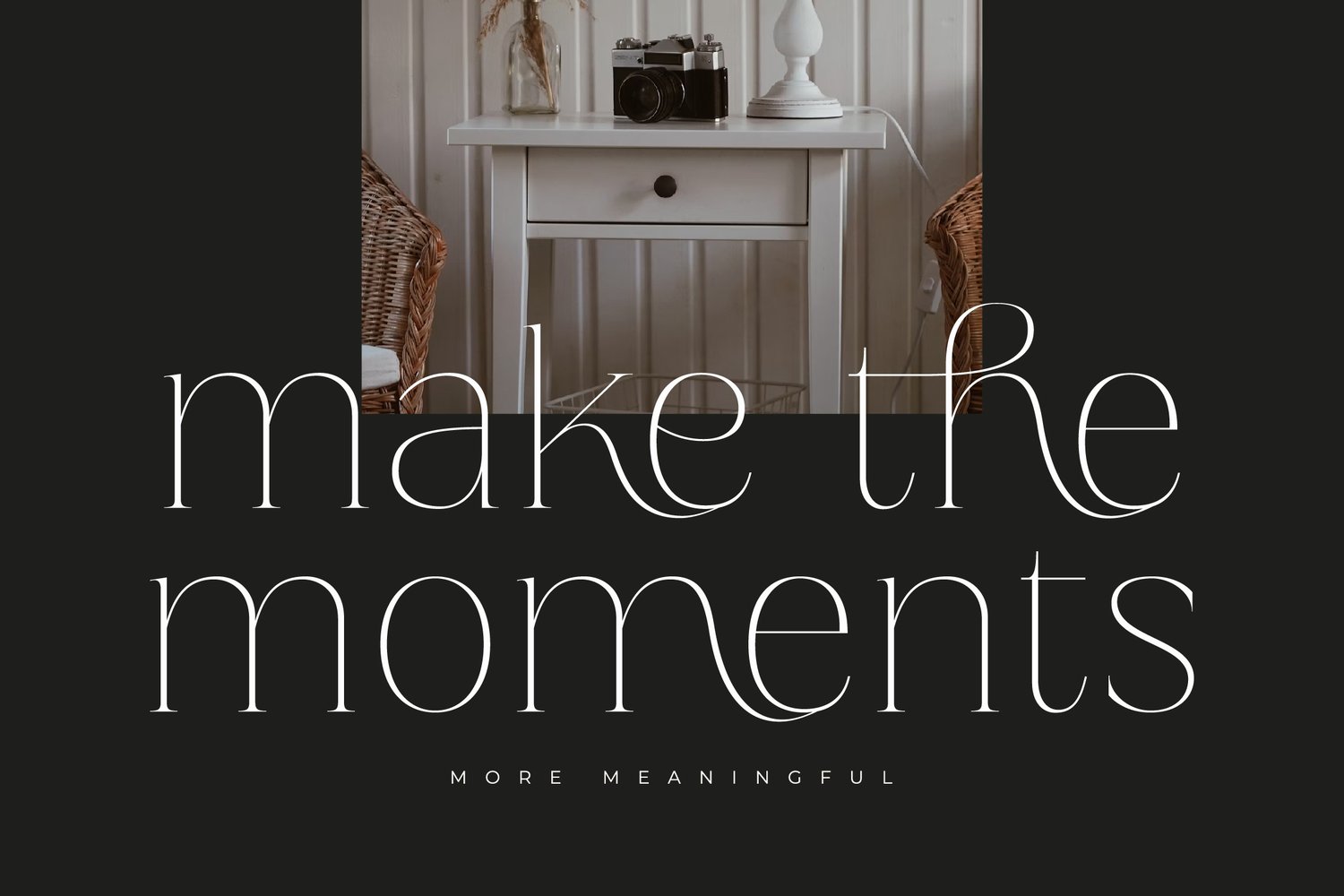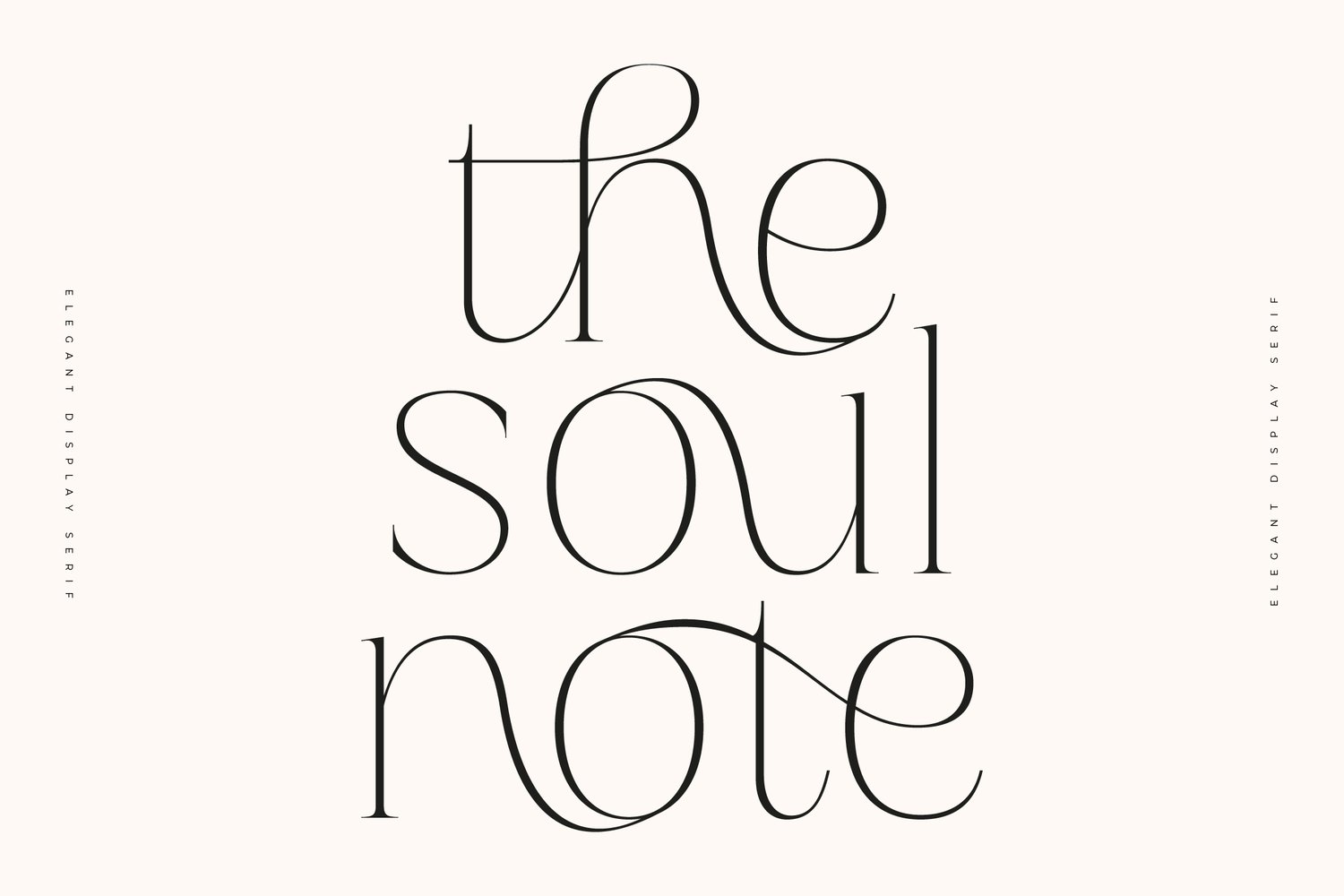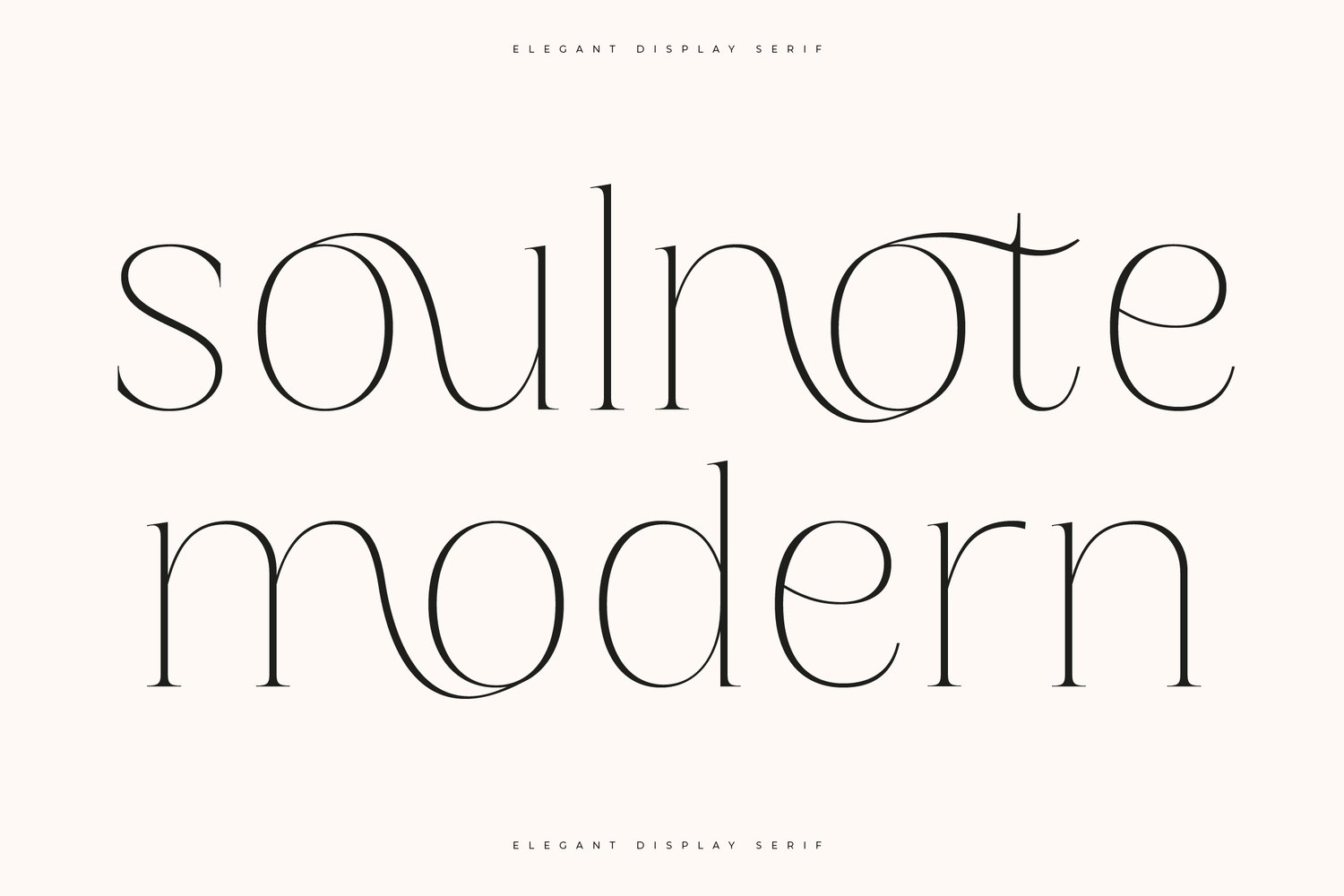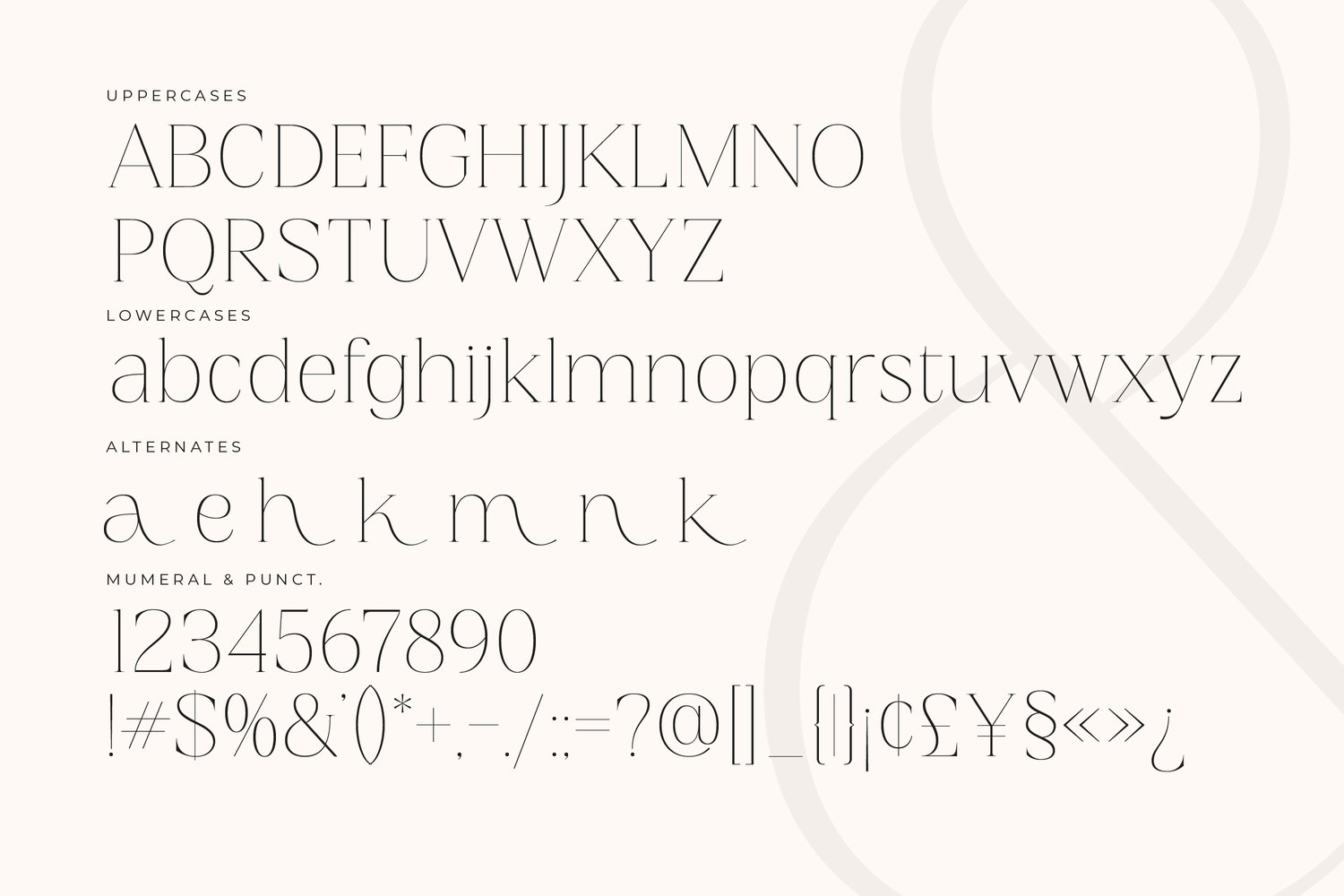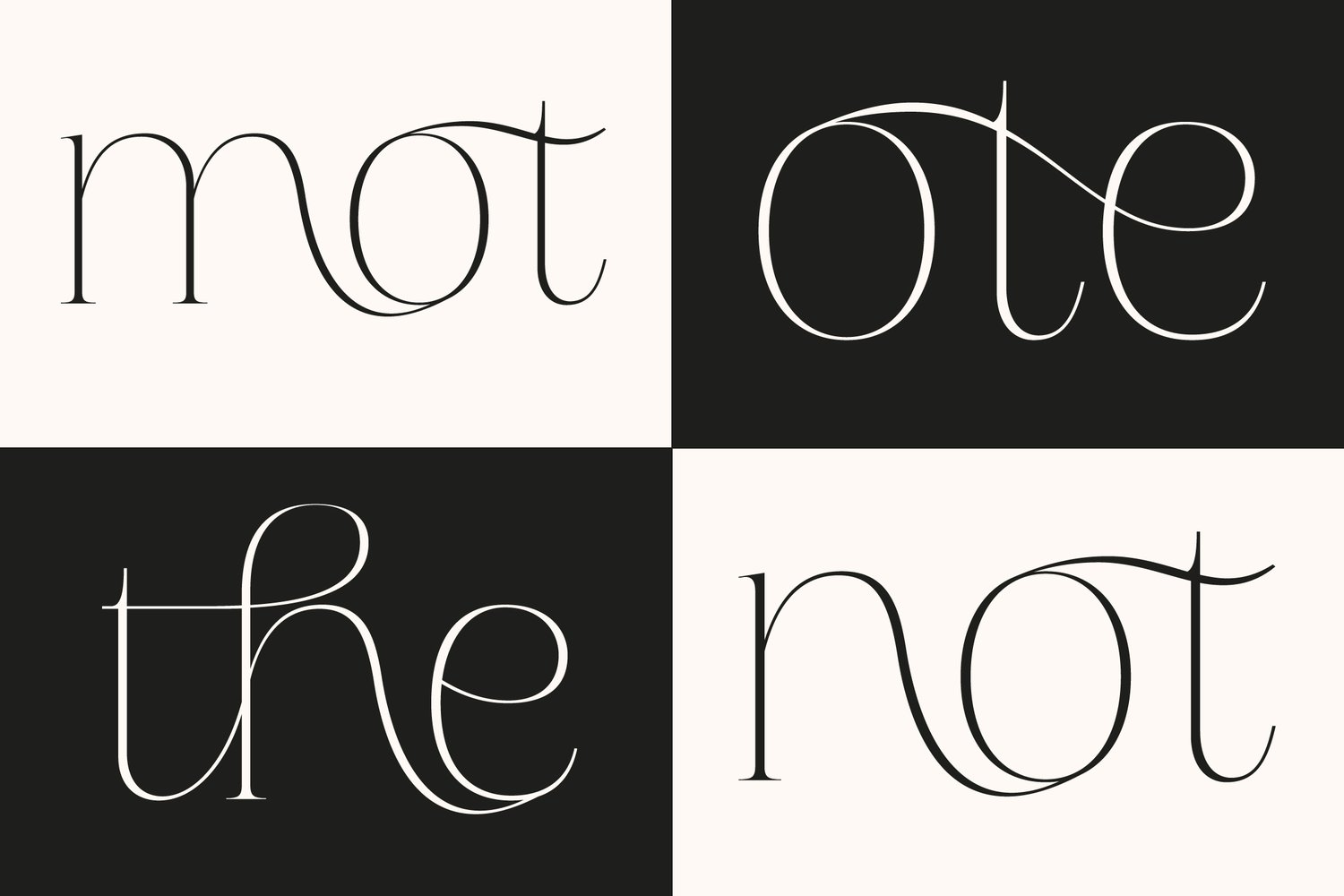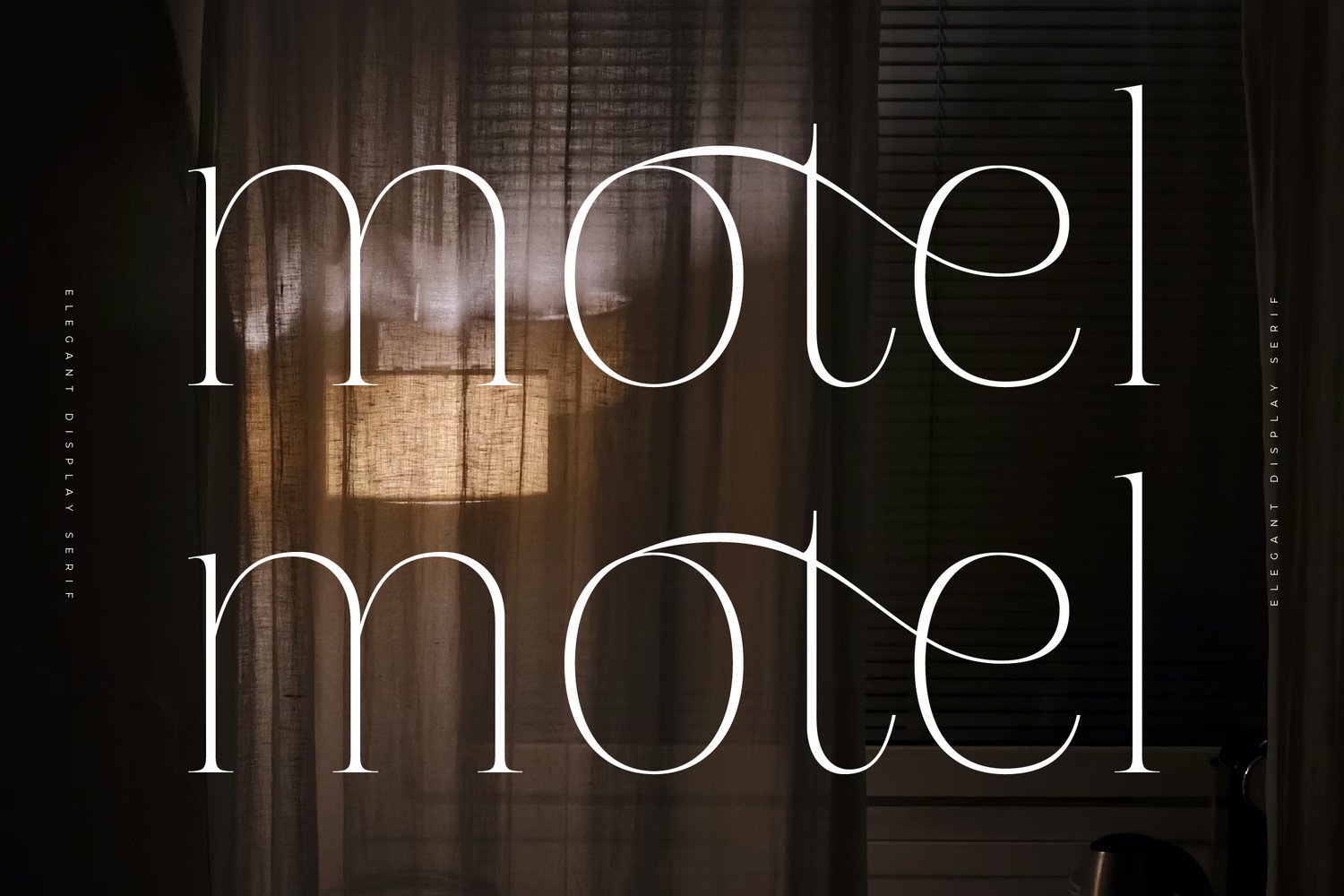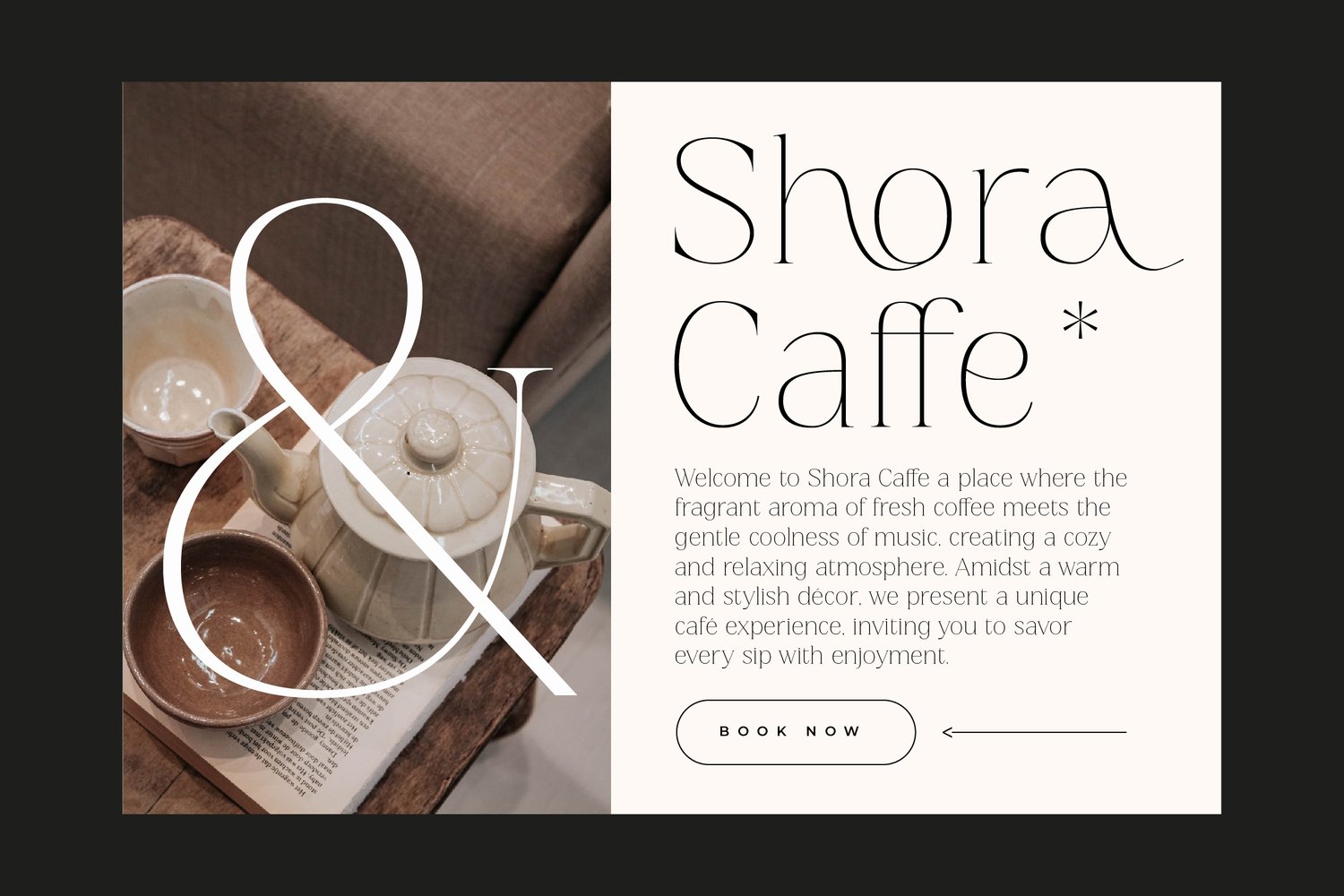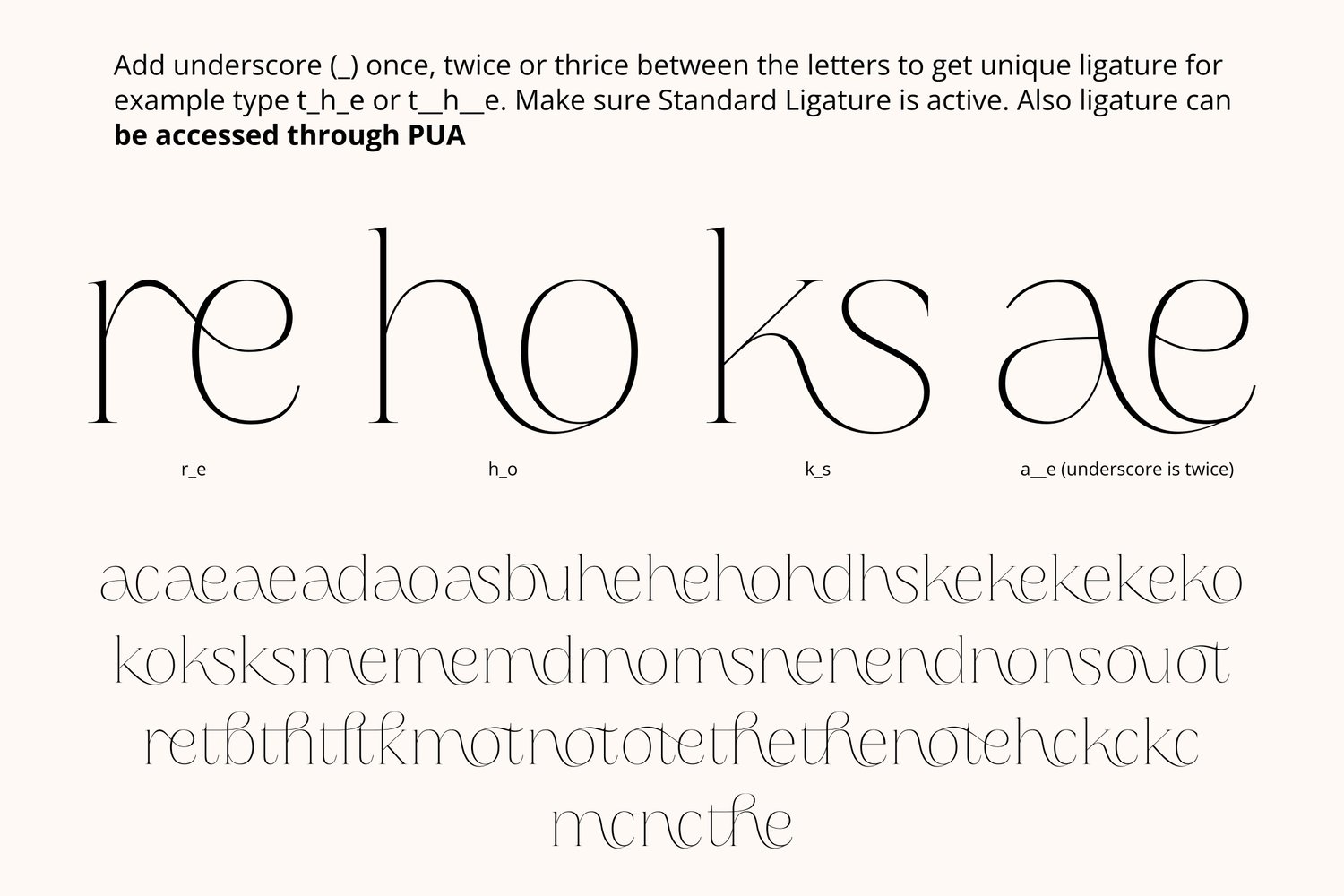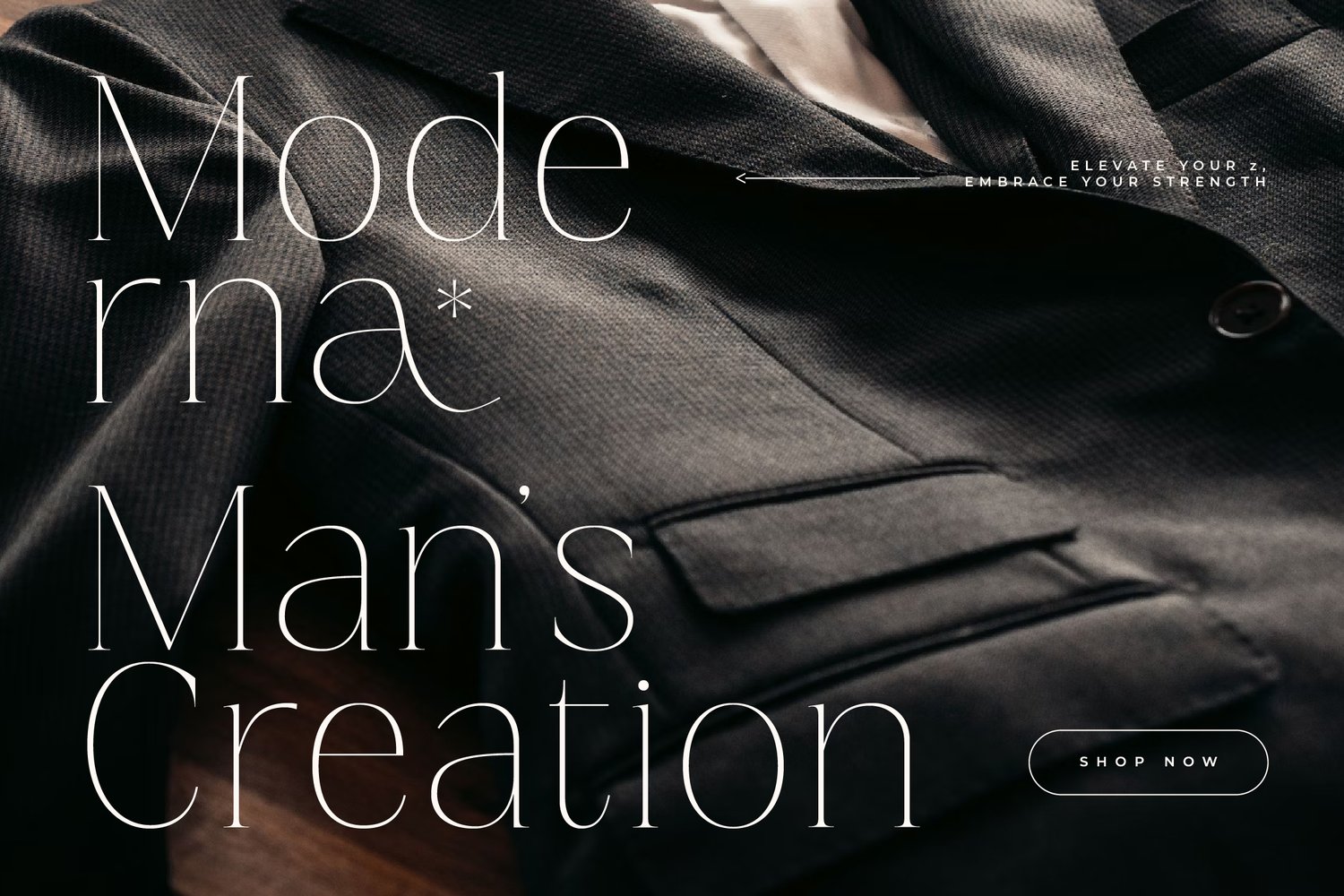
Soul Note
Soul Note Display is an elegant, smooth and light serif with various unique ligatures. It's suitable for logos, short quotes or other designs with an elegant or beautiful feel.